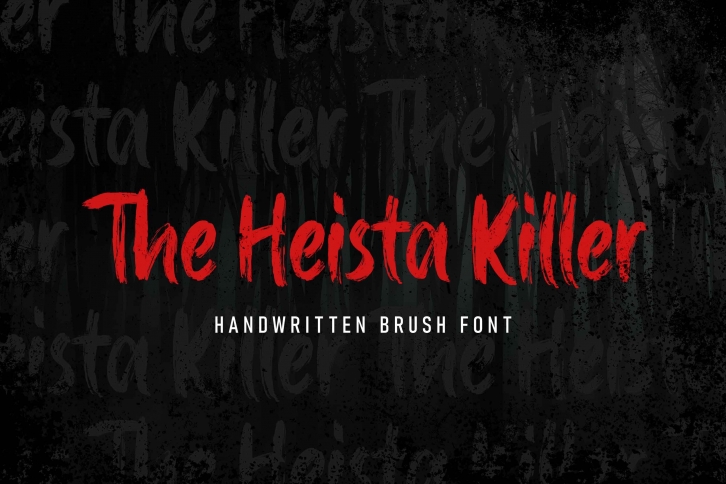
The Heista Killer FONT Download
The Heista Killer â€“ Handwritten Brush font with a clear style and dramatic movement this font is great for your next creative project such as logos, printed quotes, invitations, cards, product packaging, headers, Logotype, Letterhead, Poster, Apparel Design, Label, and etc.